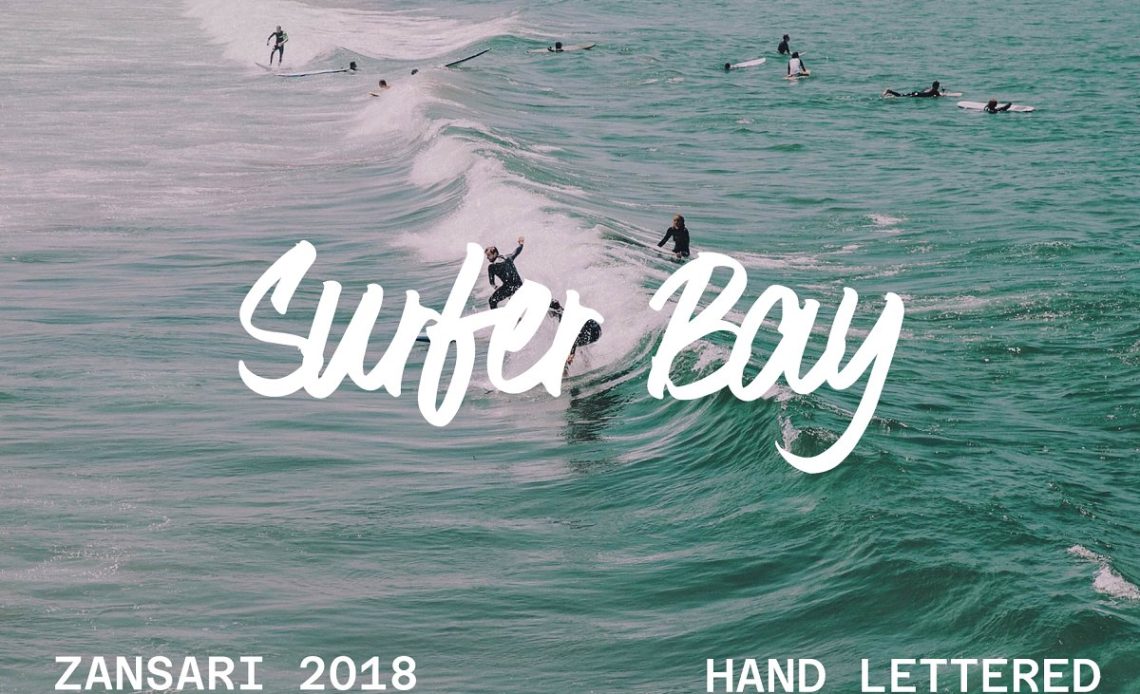
Introducing Surfer Bay Brush Font, the ultimate font for calligraphy enthusiasts seeking a modern and beachy style. Created by the talented Zaffar Ansari from Zansari font foundry in Auckland, New Zealand, this font is the perfect choice for those looking to elevate their designs with a touch of elegance and creativity.
With its unique hand-painted characters, Surfer Bay brush font brings a refreshing and captivating vibe to any project. Each character was meticulously crafted, then scanned and vectorized into a digital font file, ensuring the highest quality and attention to detail.
But what makes Surfer Bay brush font truly special? Its versatility and ability to shine in various applications. Whether you're designing eye-catching advertisements, creating a memorable logo, or crafting beautiful quote posters, this font has got you covered. Its effortless charm and effortless flow will effortlessly captivate your audience, leaving a lasting impression.
Not only is Surfer Bay brush font a favorite among designers, but it has also gained popularity as a go-to font for bloggers. Its stylish and legible characters make it perfect for creating engaging and visually stunning blog posts that keep readers coming back for more.
Surfer Bay brush font is more than just a font; it's an invitation to unleash your creativity and add a touch of elegance to your designs. Download it now and let your imagination run wild!